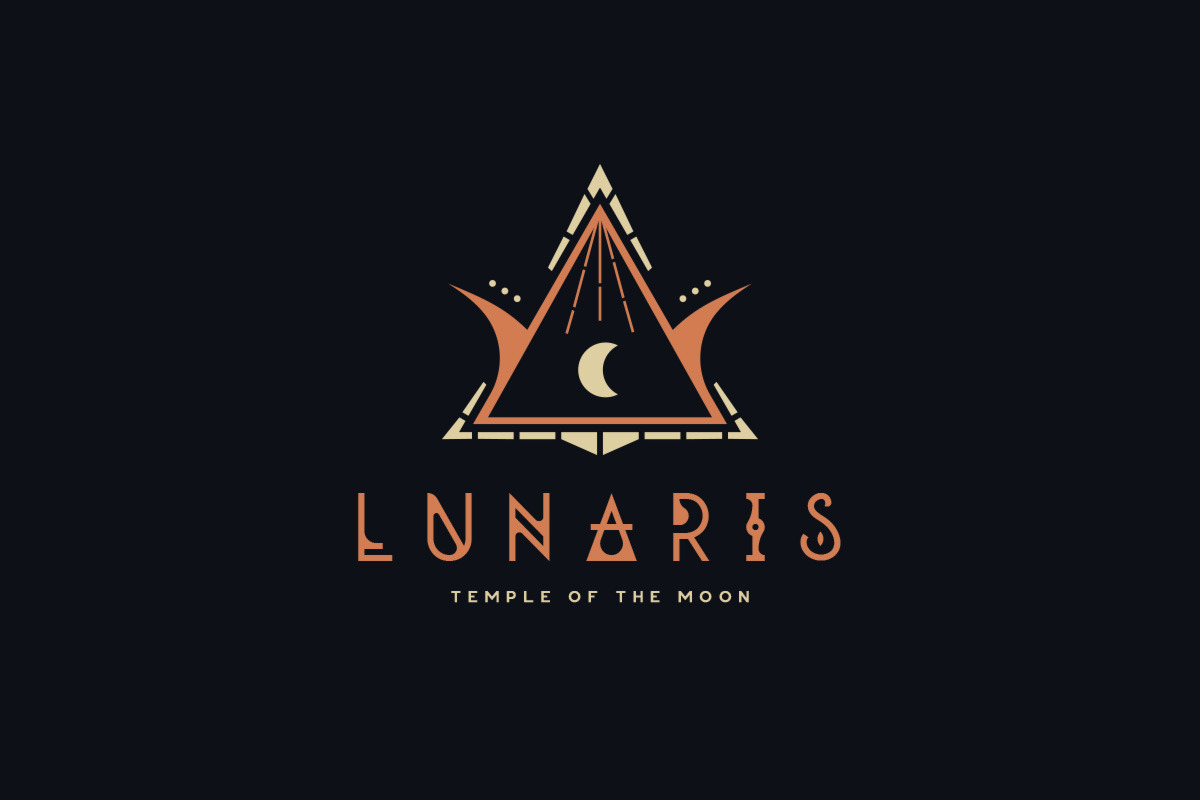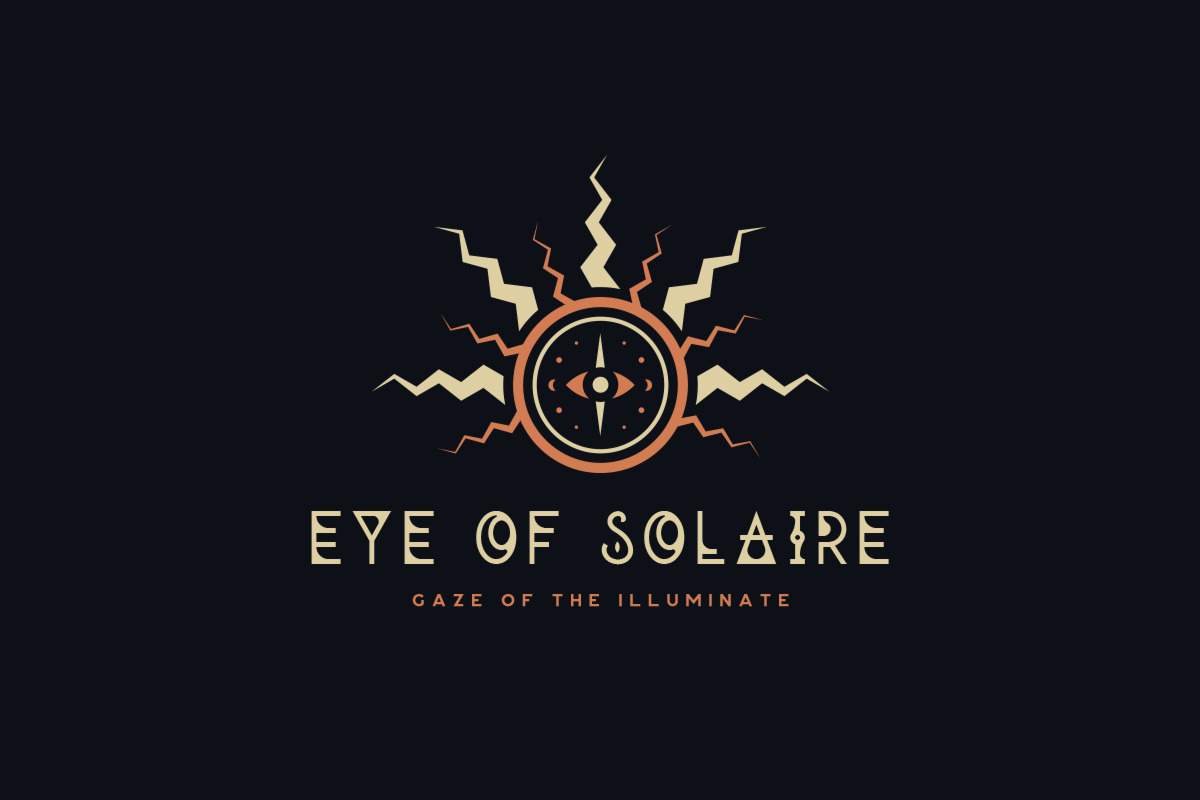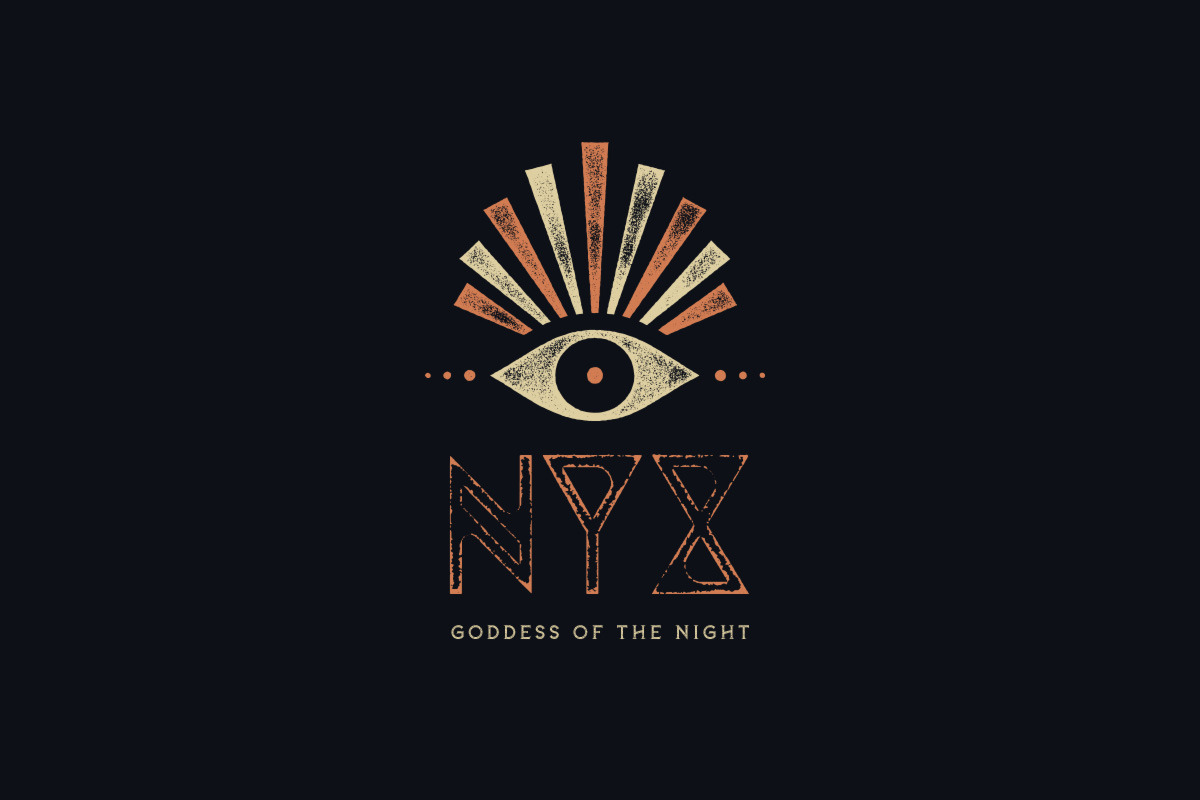
Requiem Typeface
Requiem is a font family with alien letters that still retain legibility. It includes uppercase multilingual letters, numbers, punctuation and comes in two styles. The corroded style has a natural worn-off look to it.
Paired fonts are Njord and Belmont.
- It includes uppercase multilingual letters, numbers, punctuation and comes in two styles.
- Requiem Regular
- Requiem Corroded
Why Requiem Typeface is worth a look
Requiem Typeface by Tugcu Design Co. fits naturally into Branding, posters, packaging, typography.